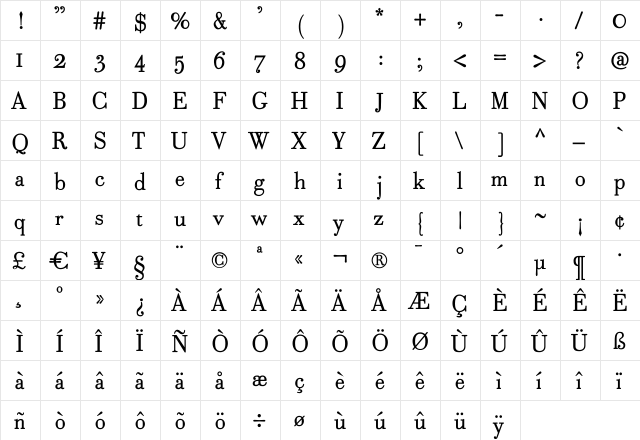
Robusta Light
Design Context for Robusta Typeface
Robusta takes a measured approach to typography — its balanced proportions and neutral character make it a reliable workhorse for both digital and print work. Its slender proportions lend an understated elegance to any composition.